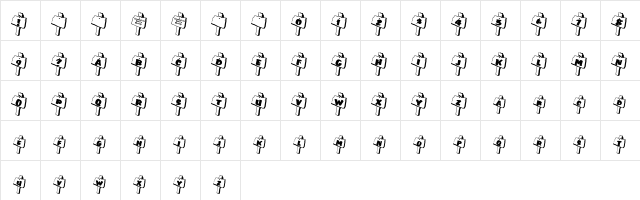
RMSignpost Regular
Design Context for RMSignpost
RMSignpost is a composed and adaptable typeface that performs quietly and consistently across a wide range of design contexts.
Pro Tip: Use RMSignpost in both headline and body roles to test its range before committing to a single application.